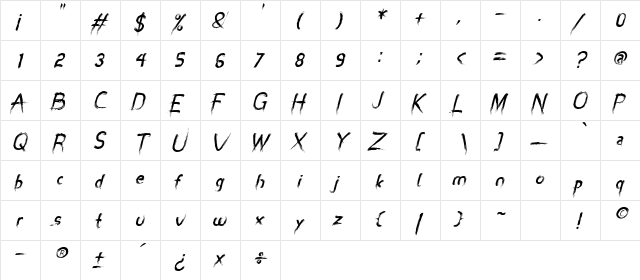
MiZTiX Italic
Design Context for MiZTiX Typeface
MiZTiX is a composed and adaptable typeface that performs quietly and consistently across a wide range of design contexts. The slanted form adds forward momentum and visual energy.
Pro Tip: Try MiZTiX for annotation and caption copy alongside an upright companion — the contrast in angle creates a dynamic but ordered typographic system.